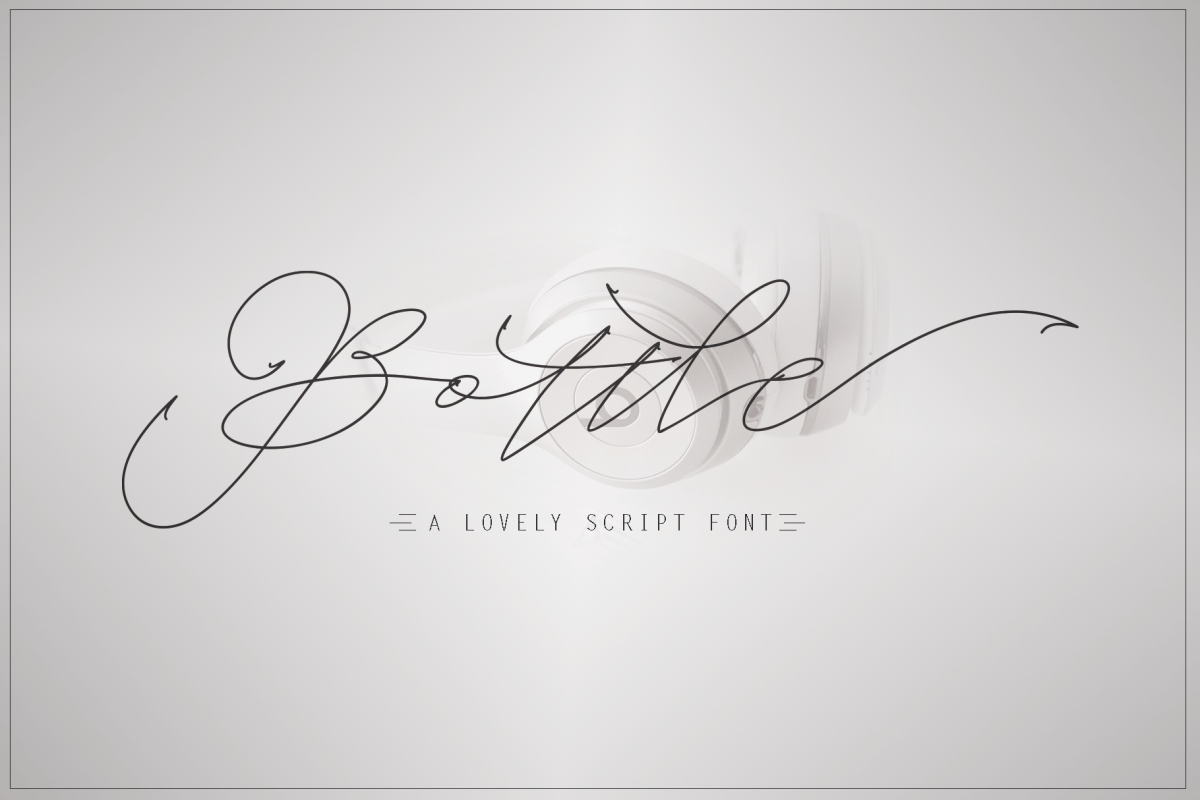
Bottle
Bottle Modern Calligraphy. This font was designed by handwriting, and it has a modern and unique forms of calligraphy, the writing style is very natural.
The Features of this fonts is;
* Standart ligatures
* Stylistic Alternates
* Contextual Alternates
* Stylistic sets
* Swash